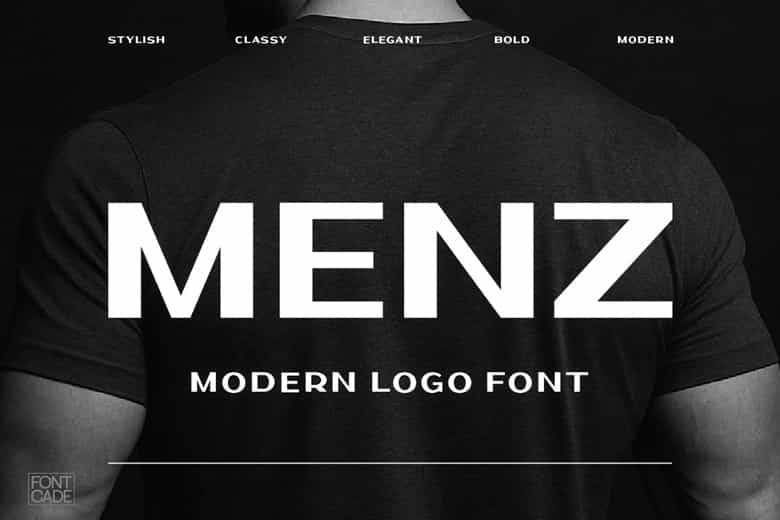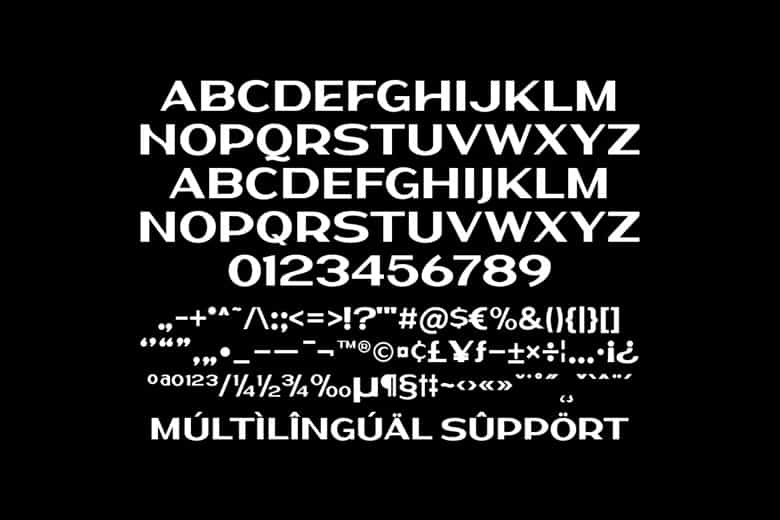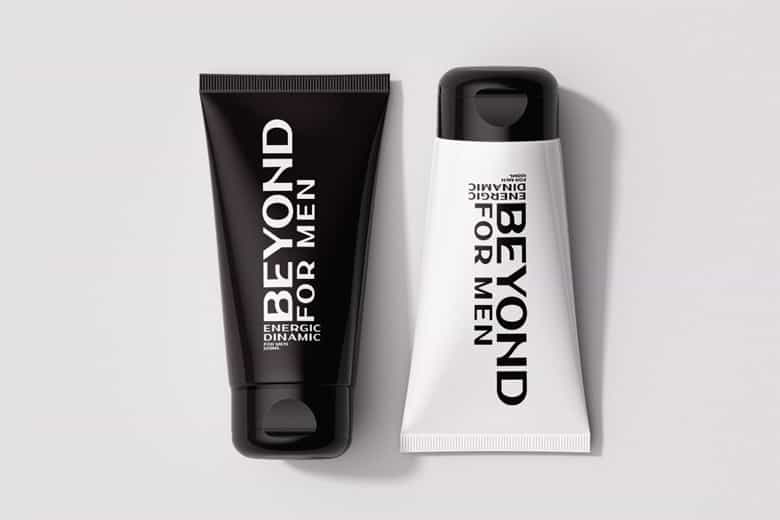
Discover Menz Font, part of the Sans Serif collection—a versatile and unique font perfect for adding a personal touch to your projects. Download it for free and enjoy crafting designs with style, from invitations to social media posts. This font is available exclusively for personal use, giving you the freedom to create without limits. Unlock your creativity with Menz Font today!
Menz is a high quality modern sans serif font that is designed by fontcade and is available for free download and personal use. It can be used perfectly in headlines, branding, logos, packaging, elements of editorial layouts and is developed to make an lasting impression. The free version provides all uppercase and lowercase letters and a few special characters too.